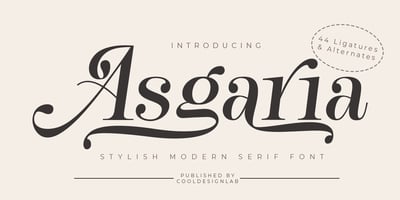
Asgaria
Asgaria font
Asgaria Font Family was designed by Kurniadi Saputra and published by Cooldesignlab. Asgaria contains 2 styles and family package options. Asgaria is a serif font family with an elegant and classy look. Each letter is designed with natural and beautiful curves. These fonts are tailor-made for luxury themed projects, from bold magazine images, to wedding invitations, branding, poster designs, logos, business cards and more. If you’re involved in a project that requires beautiful, professional writing, this font is perfect to help you get it done.The Asgaria font features open, ligature and alternative types that are packaged in 2 fonts: Regular, and Italic. Asgaria fonts include uppercase, lowercase, numbers, punctuation marks and multilingual support.